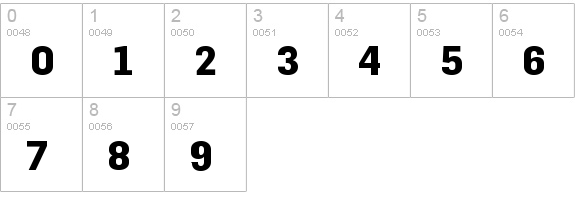
Flama Bold Font Details
Flama Bold is a strong, high-contrast variant in the Flama typeface family \xE2\x80\x94 well suited to headlines, attention-grabbing titles, and strong calls-to-action.
Flama Bold is a striking and modern typeface that exudes confidence and strength. With its bold and impactful design, Flama Bold is perfect for making a statement in headlines, logos, posters, and other design projects. The sharp edges and clean lines give this font a contemporary and dynamic feel, making it a versatile choice for both print and digital applications. What sets Flama Bold apart is that it is not only visually appealing but also easily readable, making it a practical choice for a wide range of design projects. Whether you're looking to add a touch of boldness to your branding or make a powerful statement in your designs, Flama Bold is sure to deliver. And the best part? Flama Bold is available for free download at FontsMarket.com. So go ahead and give your designs the bold and impactful look they deserve with Flama Bold font.